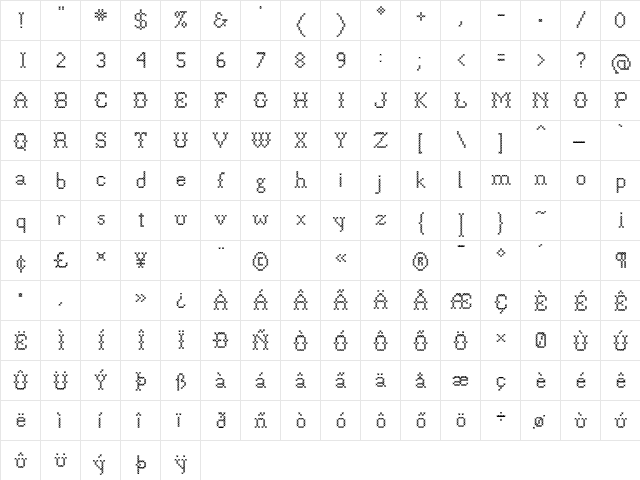
P22FolkArt Cross
Design Context for P22FolkArt Typeface
P22FolkArt is a composed and adaptable typeface that performs quietly and consistently across a wide range of design contexts.